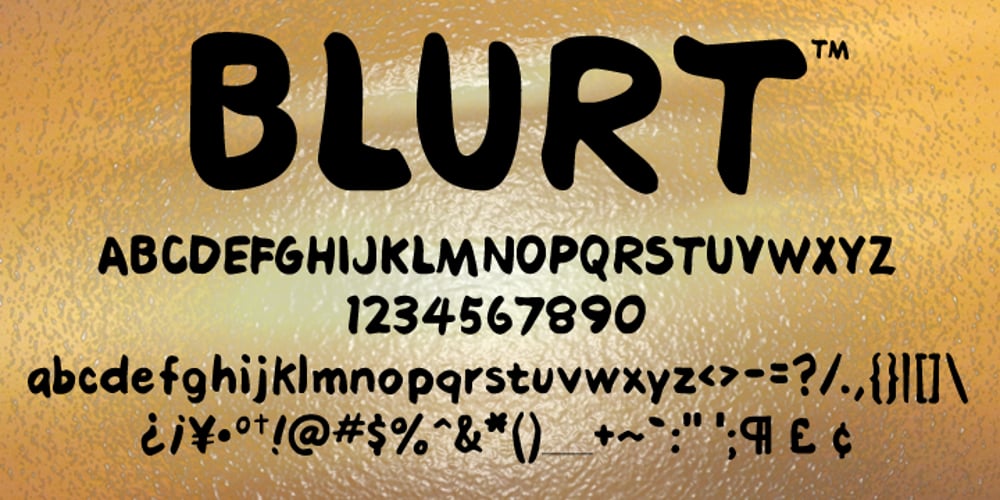
Blurt Font Family was designed by Robert Petrick and published by Robert Petrick. Blurt contains 1 styles and family package options. Blurt is a bold, versatile, spunky easy to read letter form that will let your product and your text message be noticed.